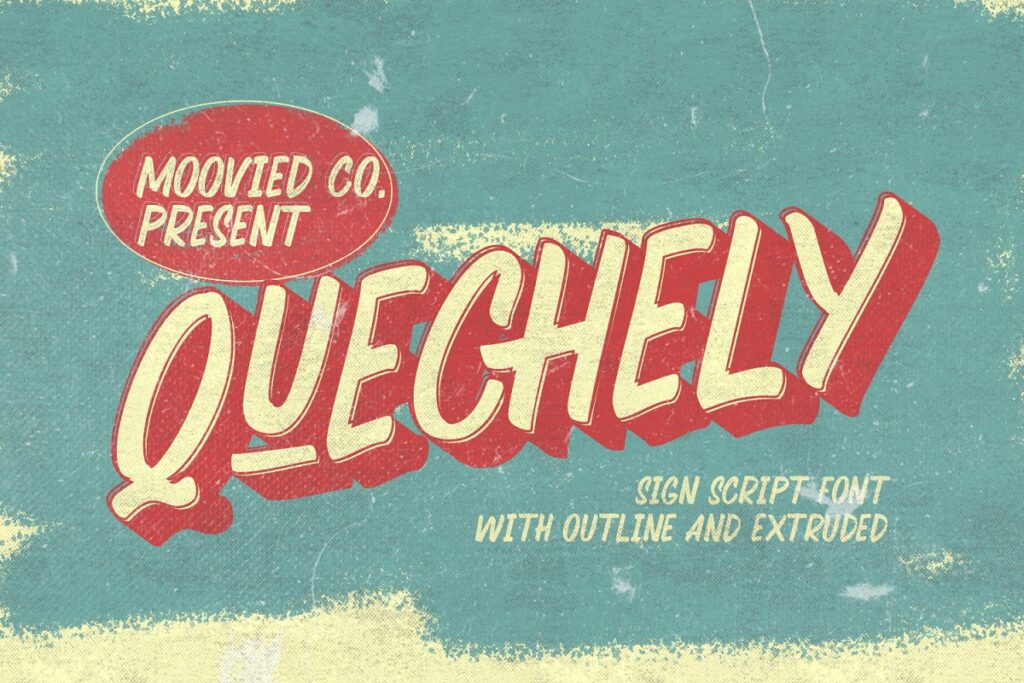
Quechely, a new font layer for the needs of signs with a retro design style, designed with a bold script that comes with 3 styles, lines and shadows, this font was designed by retro typographic design styles in the 60s.